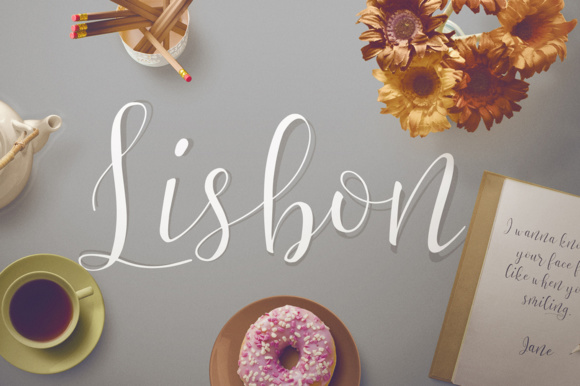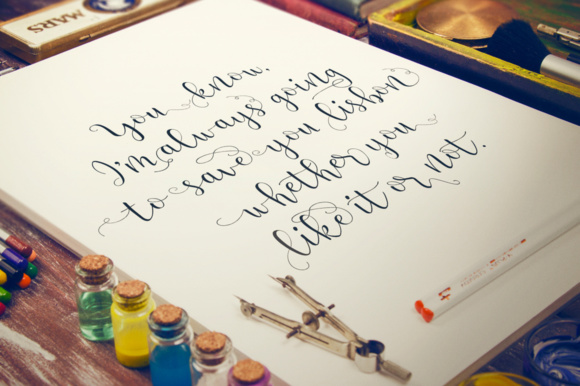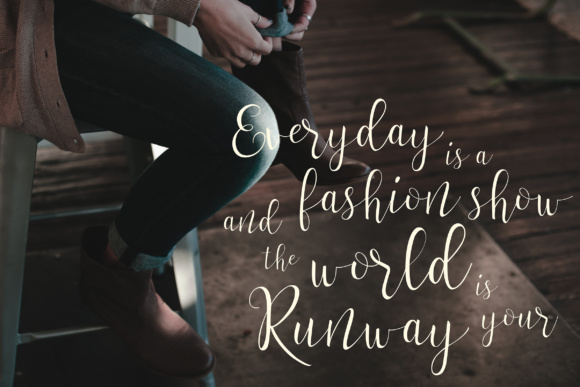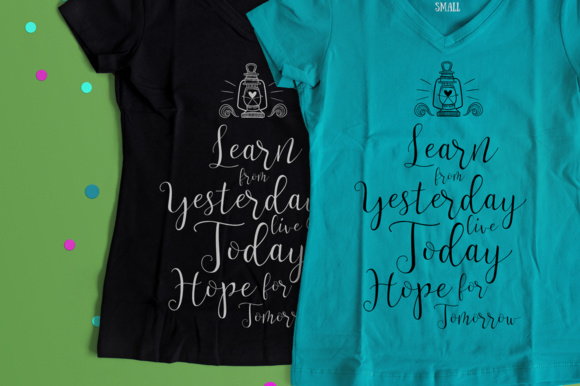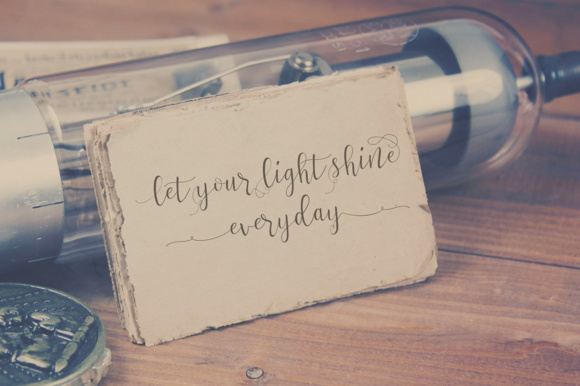
Lisbon Font
About Lisbon Font
Lisbon is a beautiful and refined calligraphy font; this font carries a contemporary feel, and comes with tons of glyphs and alternate characters so your designs can look truly unique and compelling.